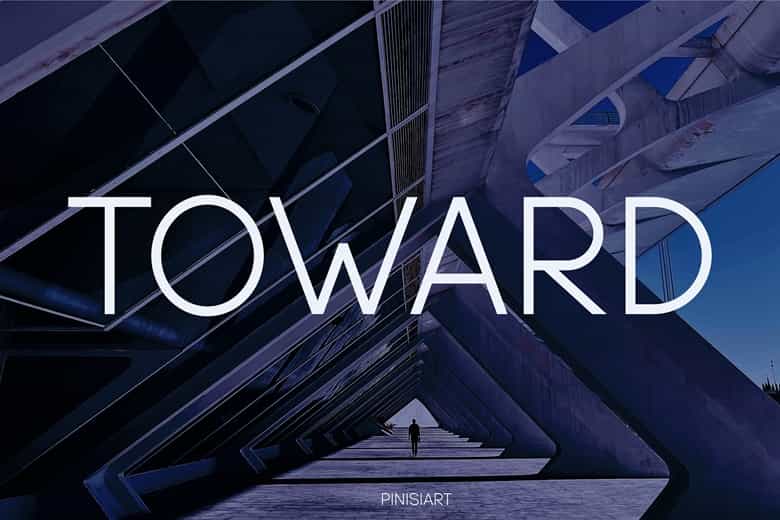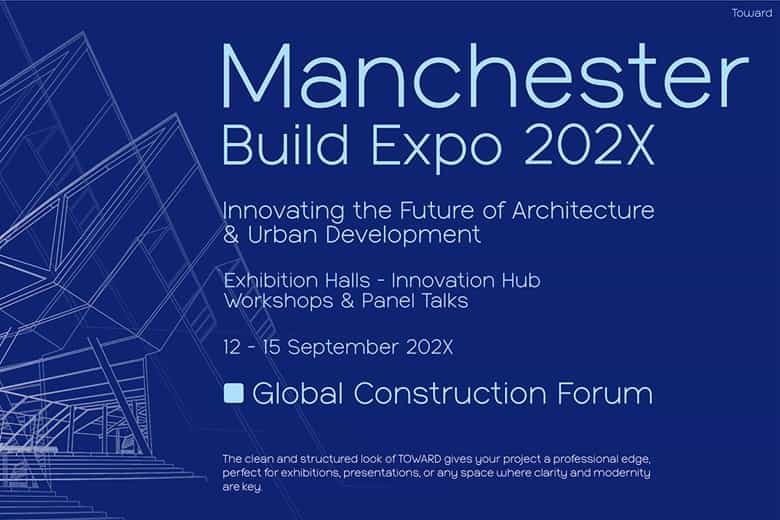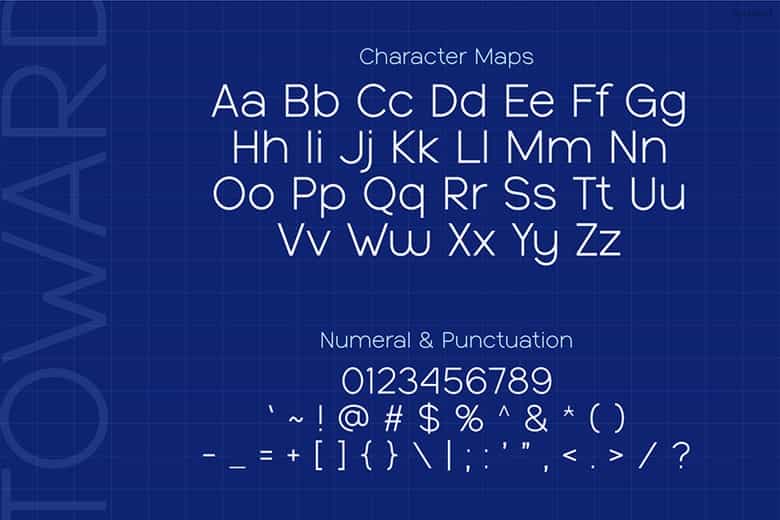
TOWARD is a futuristic minimalist sans serif font that aims to constitute new-age innovation and symbolism to the designing of visual identities. This font incorporates elements such as rectilinear line modes with strong pointy edges that can be associated with futuristic style. Whether the goal is to define a leading innovative company and its product or come up with an architectural layout or conceptualize an ideal future digital experience – TOWARD advances vision to clarity and elegance.